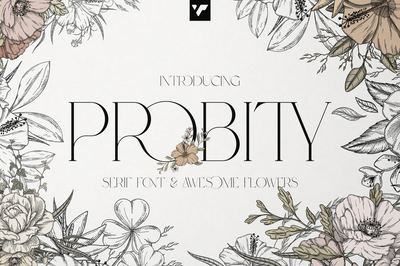
Probity – Creative serif font + more
Introducing Probity creative serif font (latin and Cyrillic) + vintage floral elements and compositions
Probity is casual and creative font loaded with 95 languages support, alternate and ligature glyphs, clip art floral compositions and elements to make you typography truly unique!
- Uppercase, numeral, punctuation & Symbol
- ligature glyphs
- alternates
- Multilingual support – 95 languages
- Cyrillic support
Graphic Elements
- 18 color compositions
- 14 monochrome compositions
- 26 floristic letters